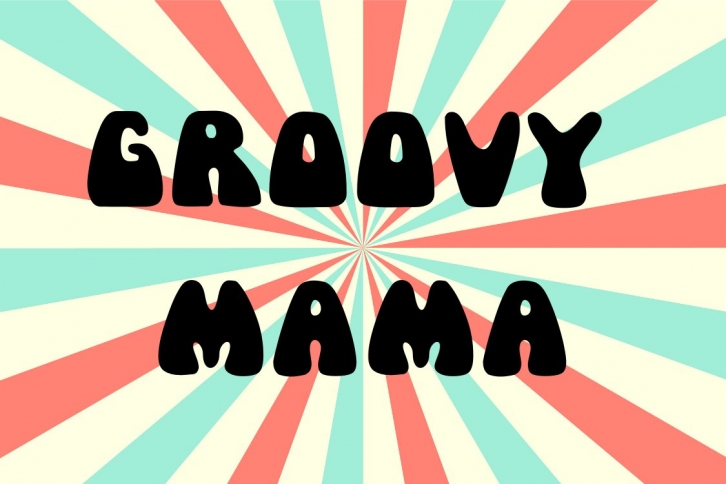
Groovy/retro handwritten font.
This font is perfect for retro designs, procreate, branding, shirts, logos, procreate, stickers, cricut projects, instagram, social media and more!